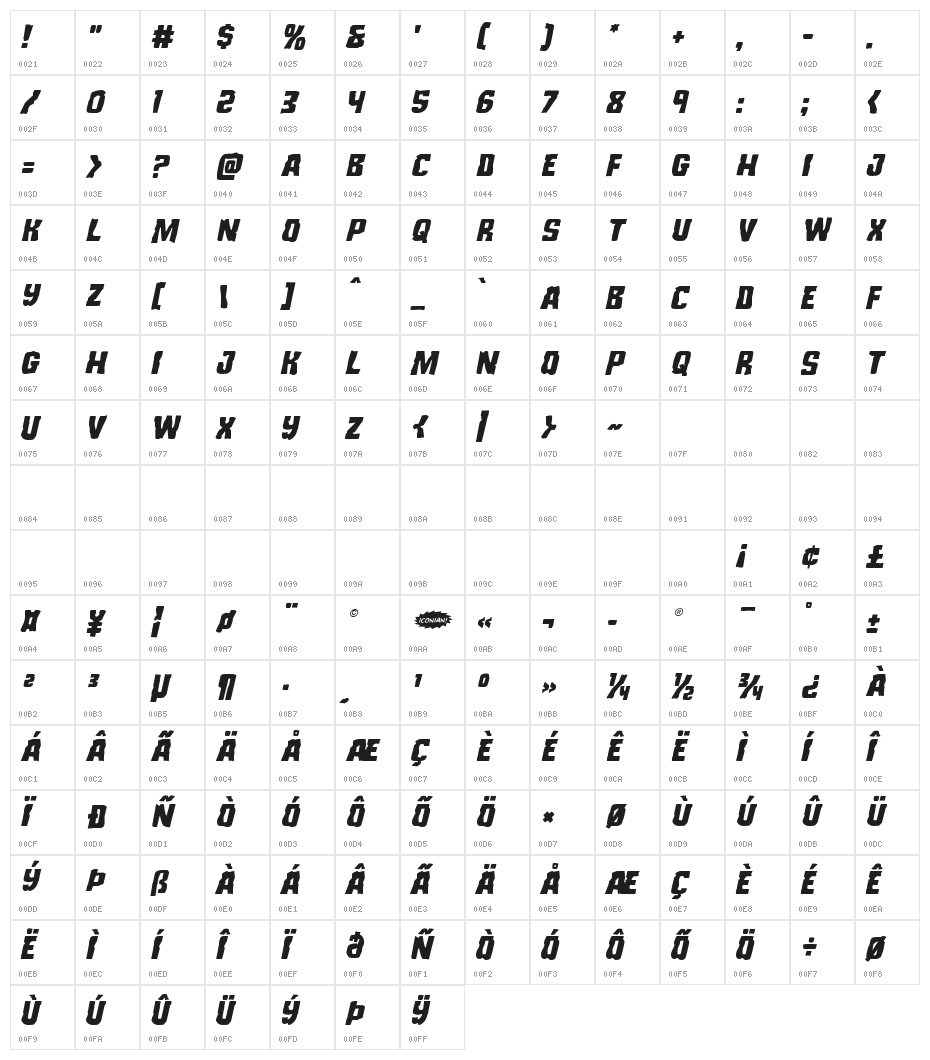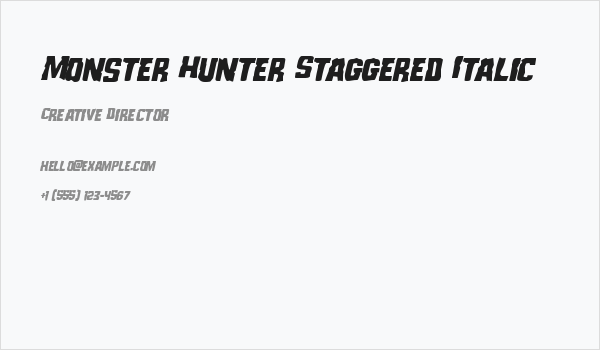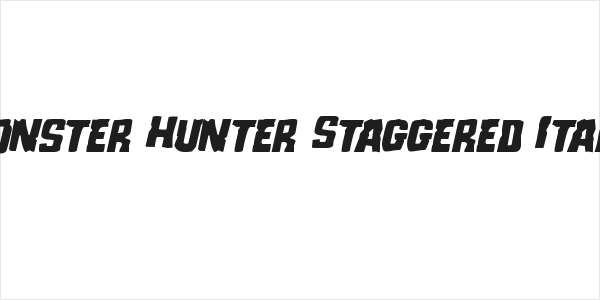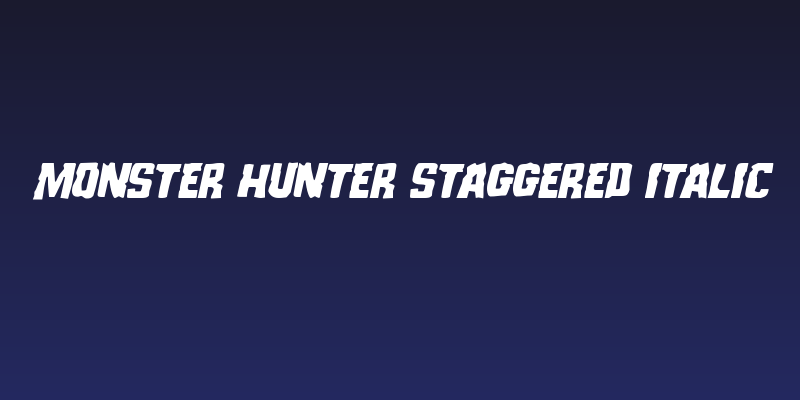
Monster Hunter Staggered Italic Font
Monster Hunter Staggered Italic Description
This font features a bold and dynamic style with a staggered, italicized appearance. The characters are robust and slightly slanted, giving a sense of movement and energy. The strokes are thick and consistent, contributing to a strong visual impact. The design is reminiscent of action-packed themes, making it suitable for projects that require a bold statement. The uppercase and lowercase letters maintain a uniform width, ensuring readability while adding a unique flair. The numerals and special characters are crafted with the same boldness, ensuring consistency across all text elements.
| Proposed Projects | Ideal for video game titles, movie posters, sports branding, and dynamic advertising campaigns. |